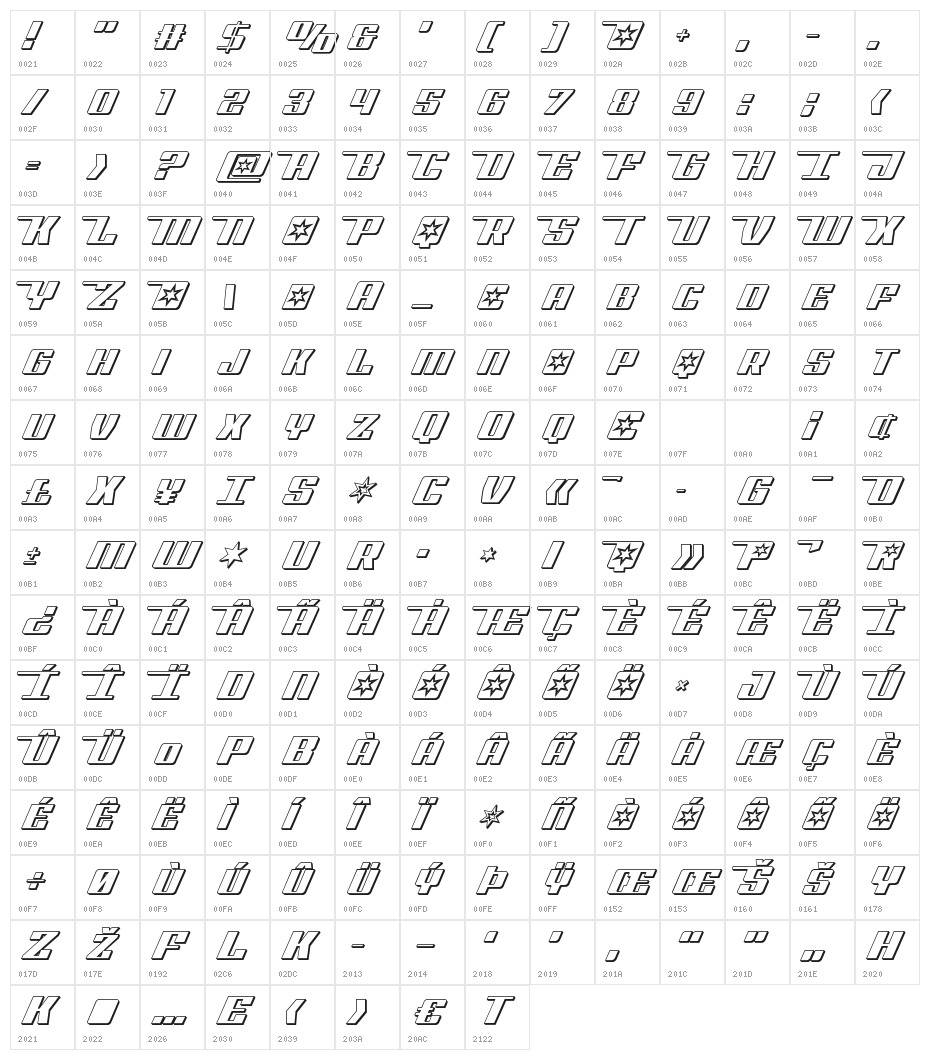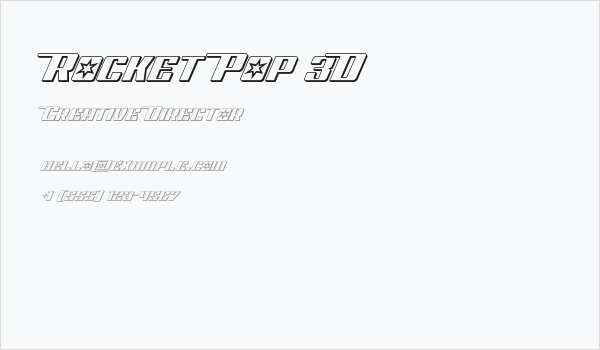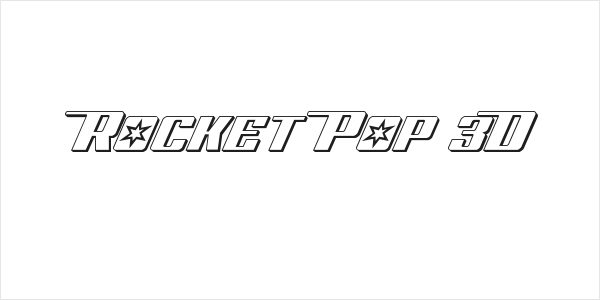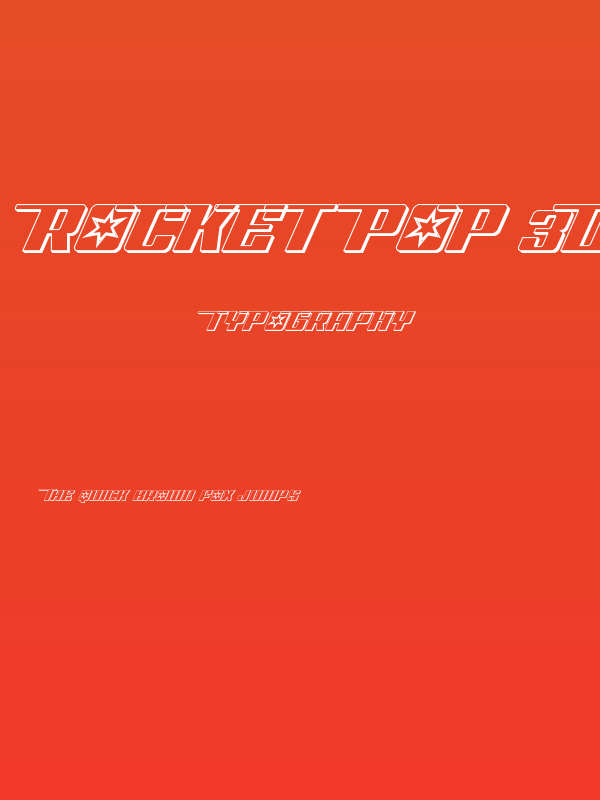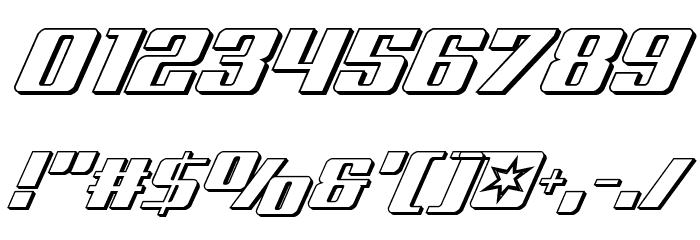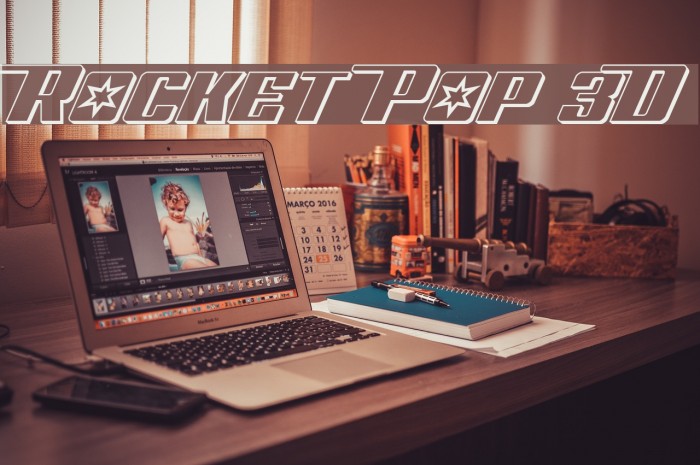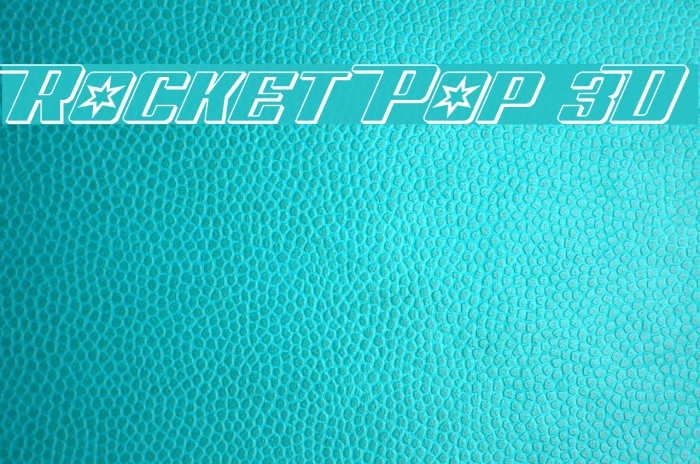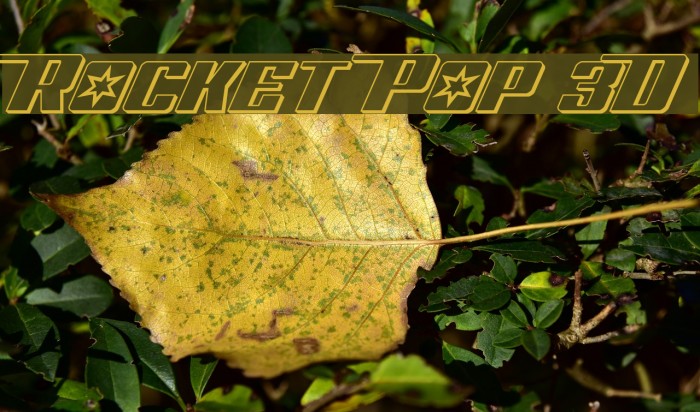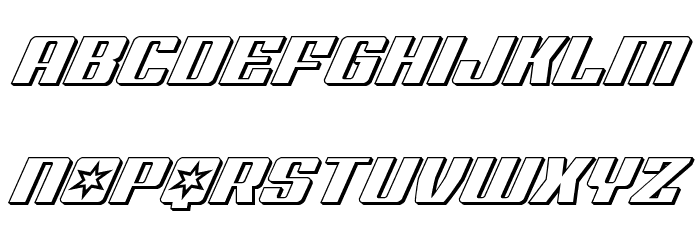
Rocket Pop 3D Font
Rocket Pop 3D Description
This font features a bold, three-dimensional style with a distinct outline that gives each character a dynamic and impactful appearance. The uppercase letters are designed with a star motif embedded within certain characters, adding a playful and unique touch. The font has a futuristic and energetic vibe, making it suitable for eye-catching designs. The characters are slightly slanted, enhancing the sense of motion and excitement. The numbers and special characters maintain the same bold and outlined style, ensuring consistency across all glyphs.
| Proposed Projects | Ideal for posters, video game titles, branding for tech products, and any project needing a bold, futuristic look. |